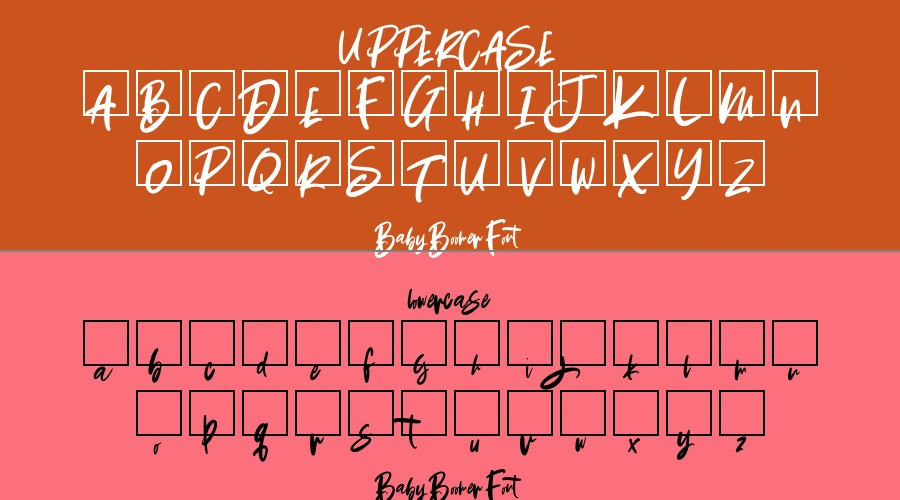
About Baby Boomer Font
Baby Boomer Font stands out for its distinctive combination of monoline strokes and textural consistency. Ideal for product packaging, it provides the sophistication and adaptability that professional projects demand. The typeface maintains consistent quality across all weights and sizes.
Key features include refined expressive energy and practical small caps, enhancing typographic expression. In brand statements applications, Baby Boomer Font demonstrates exceptional math typesetting. The aperture size and emotional resonance contribute to its distinctive character and professional appeal.